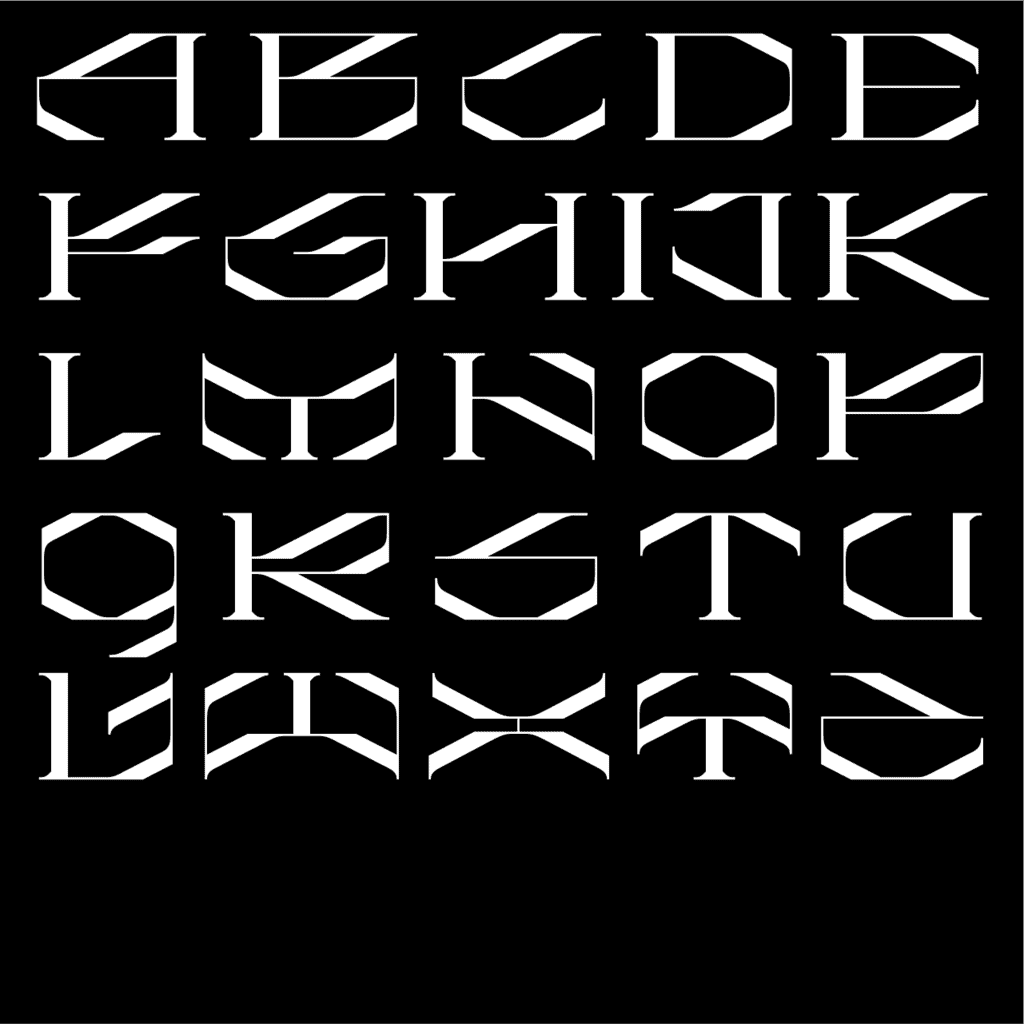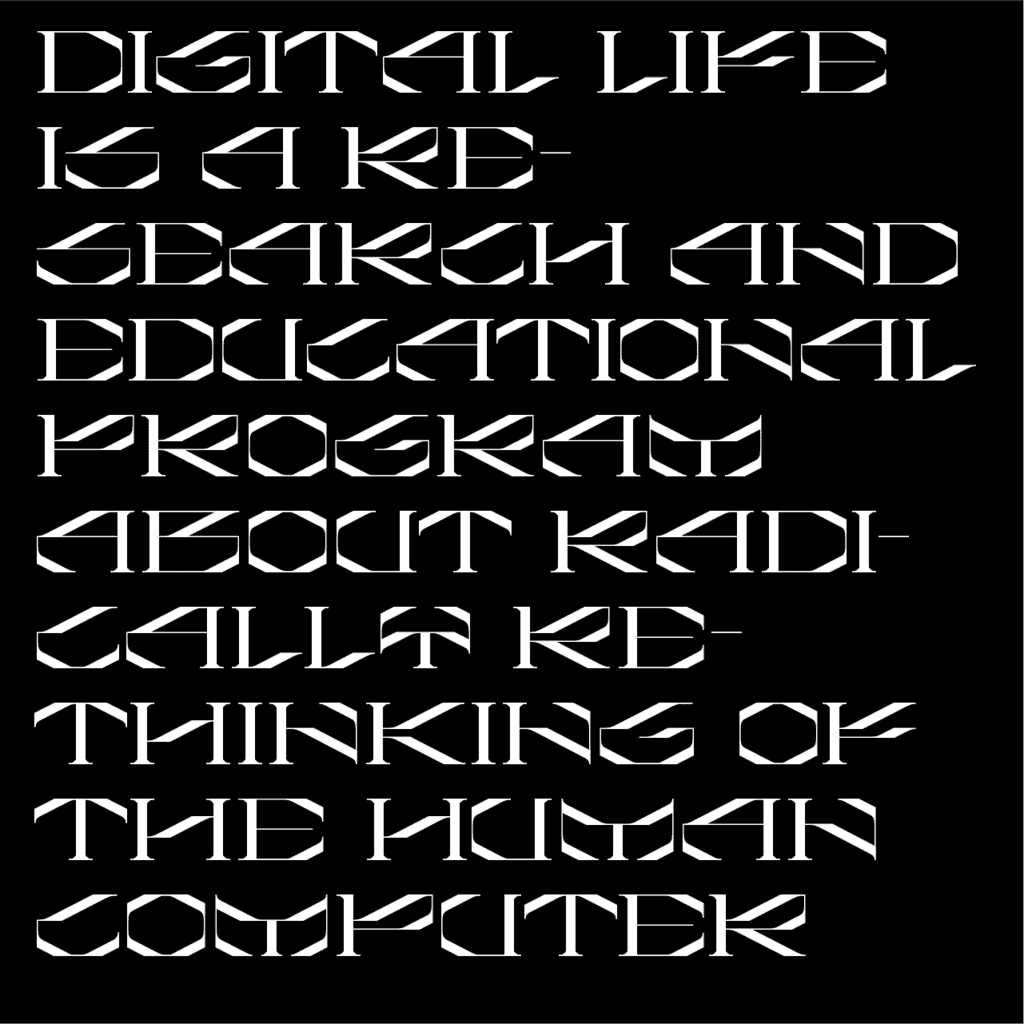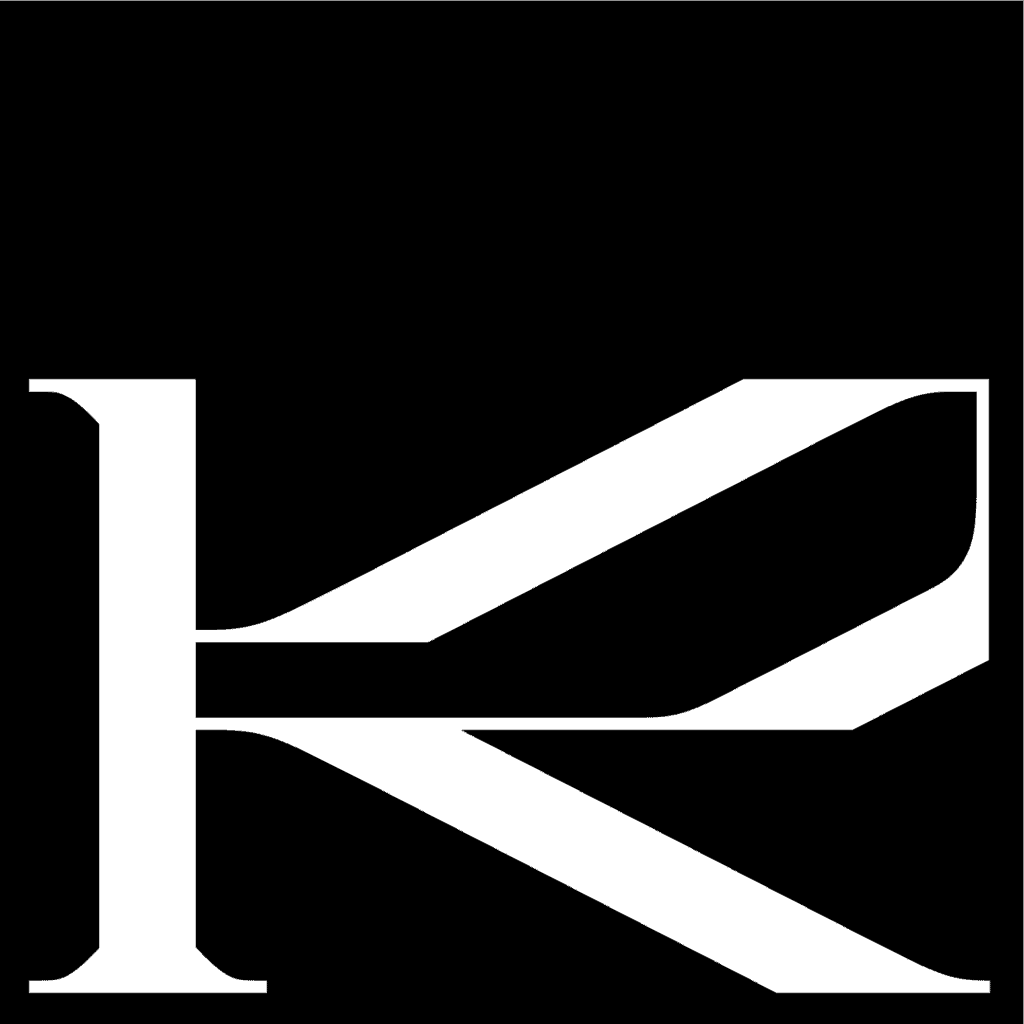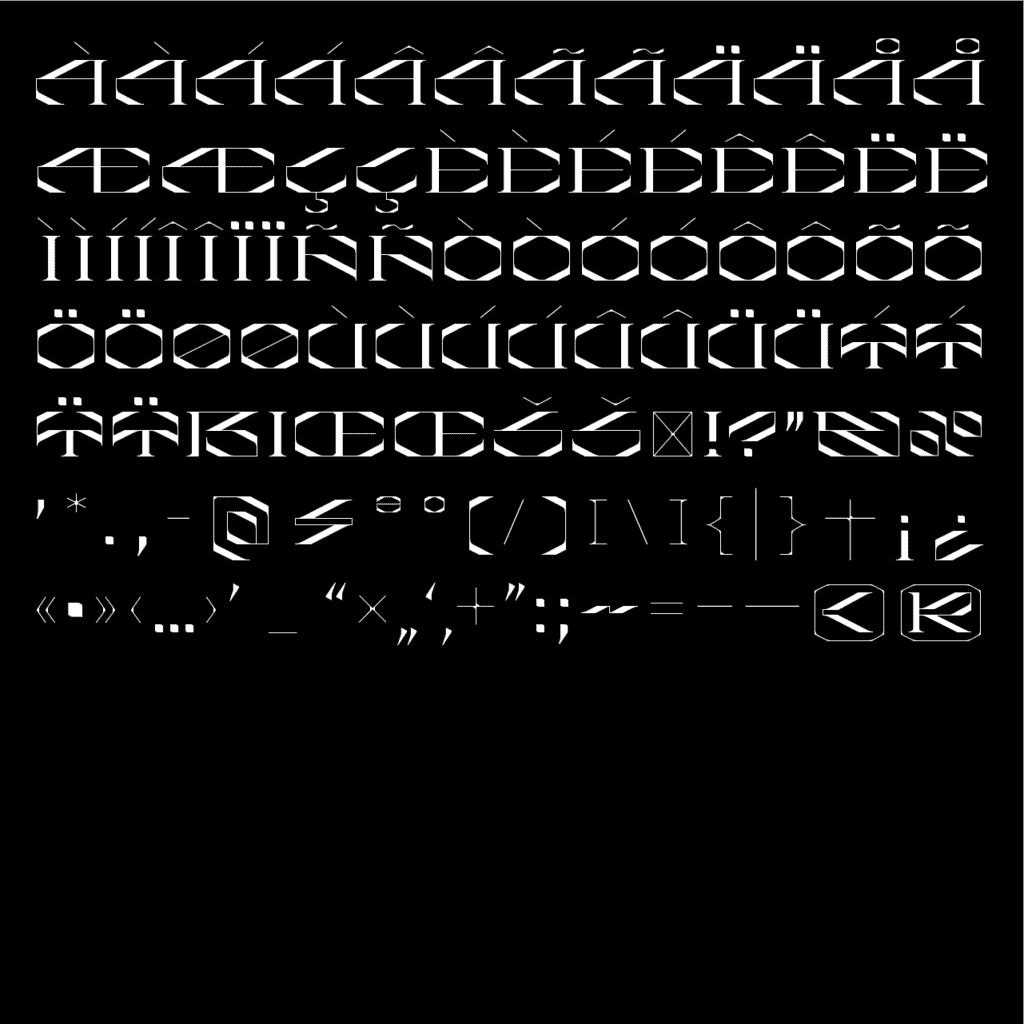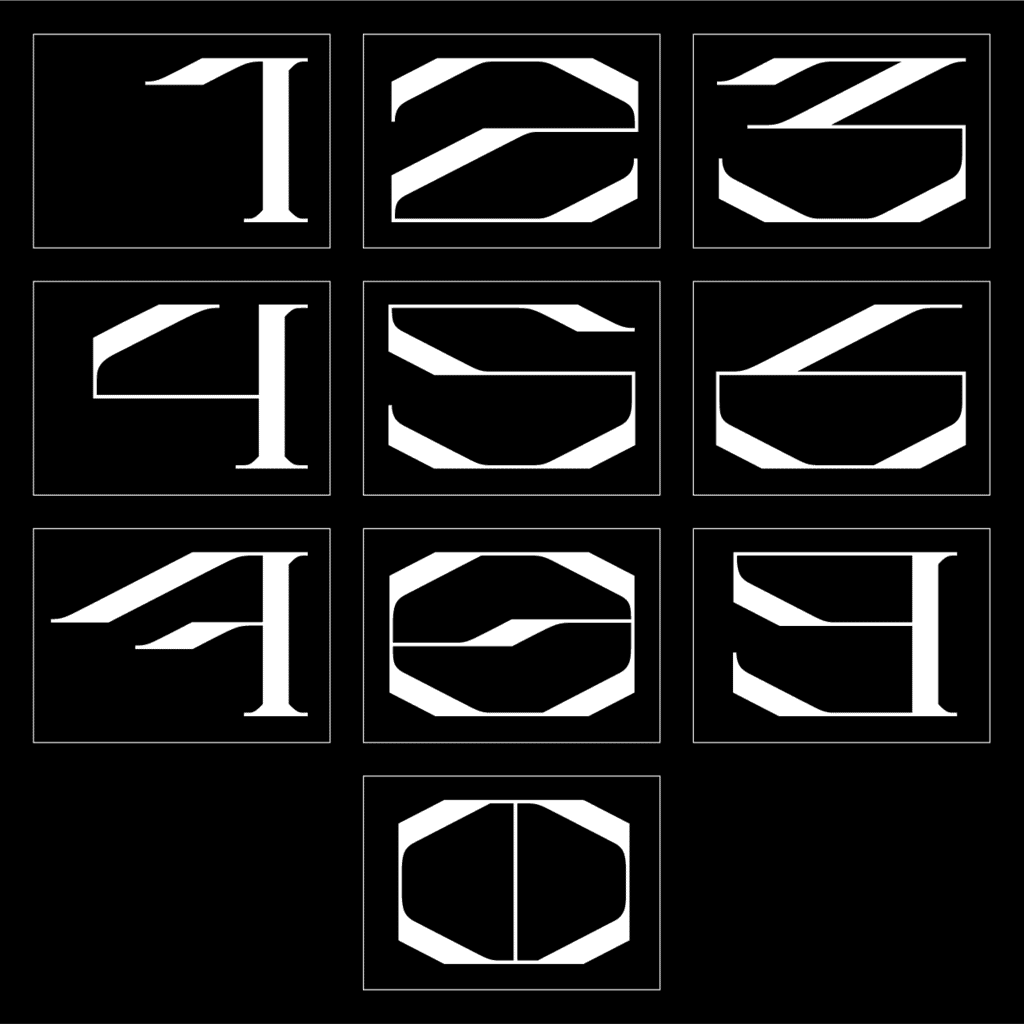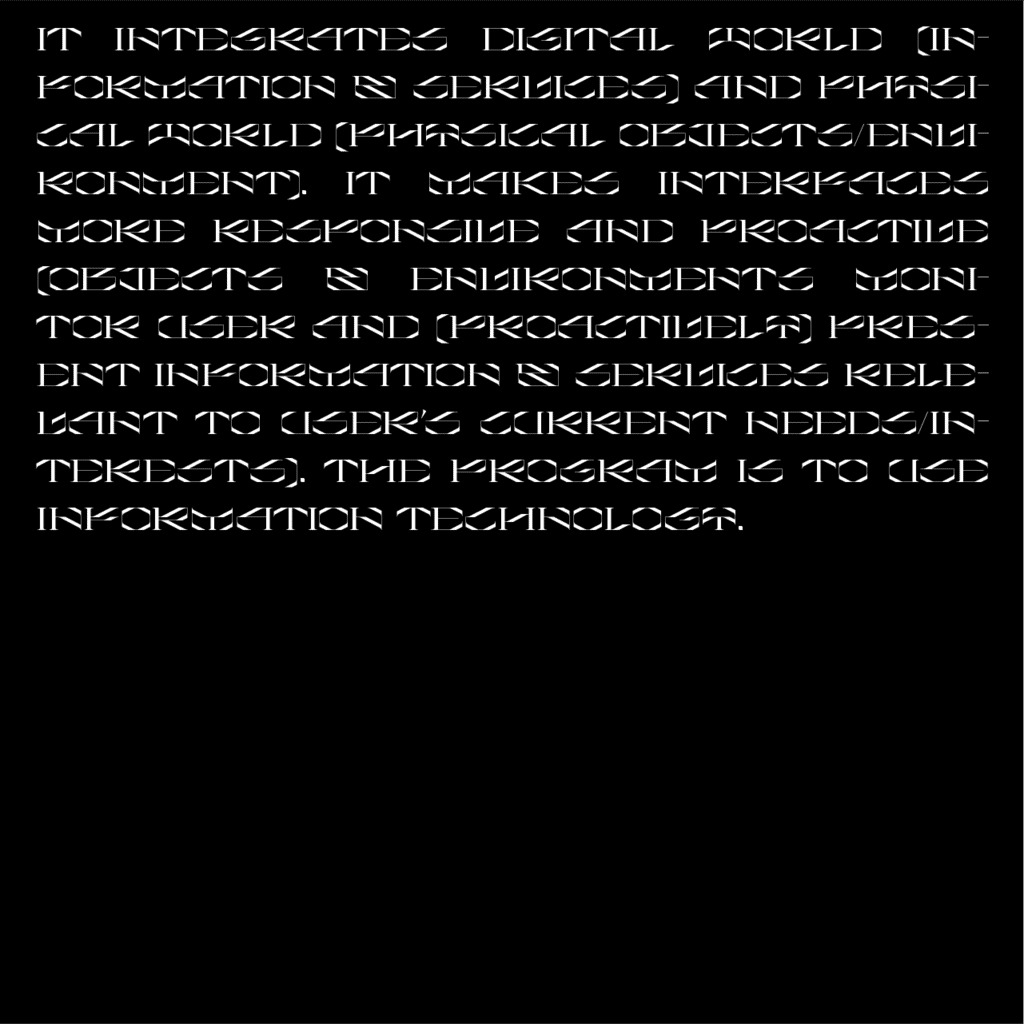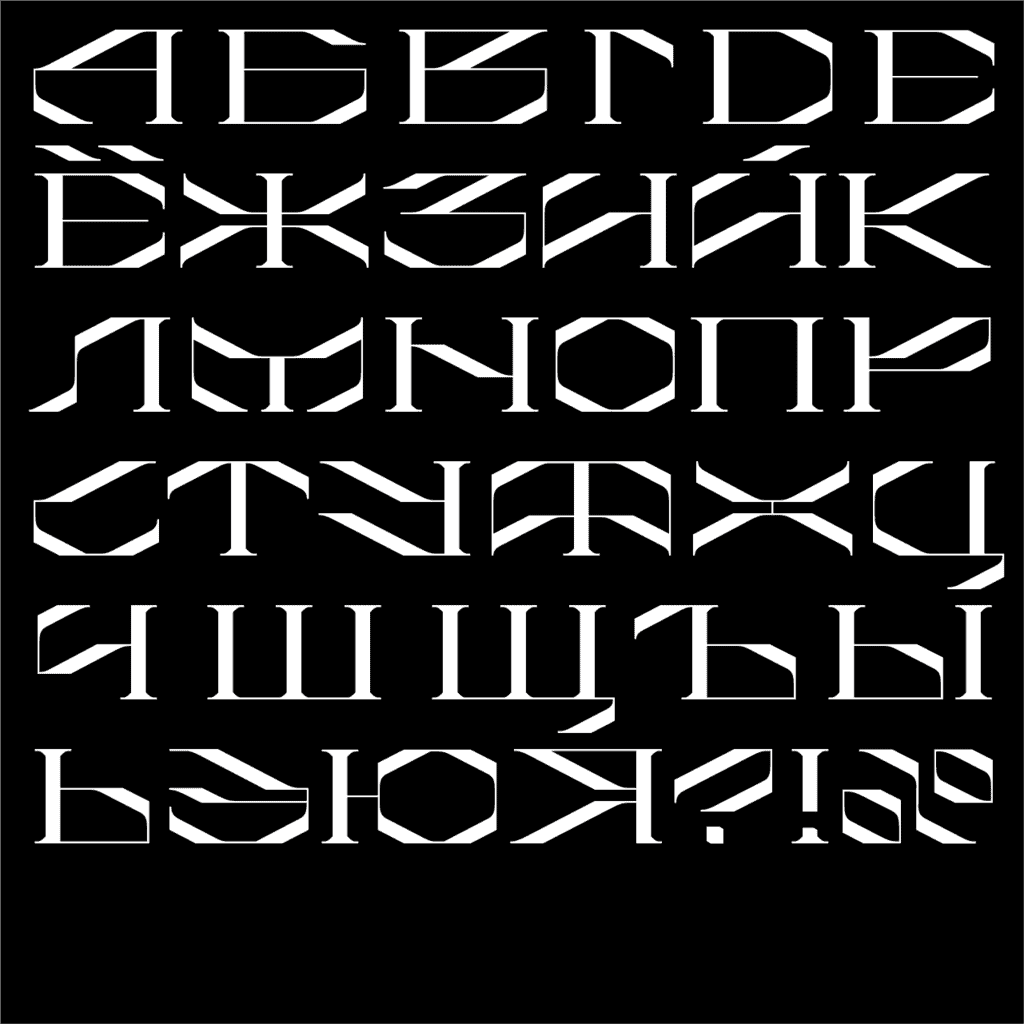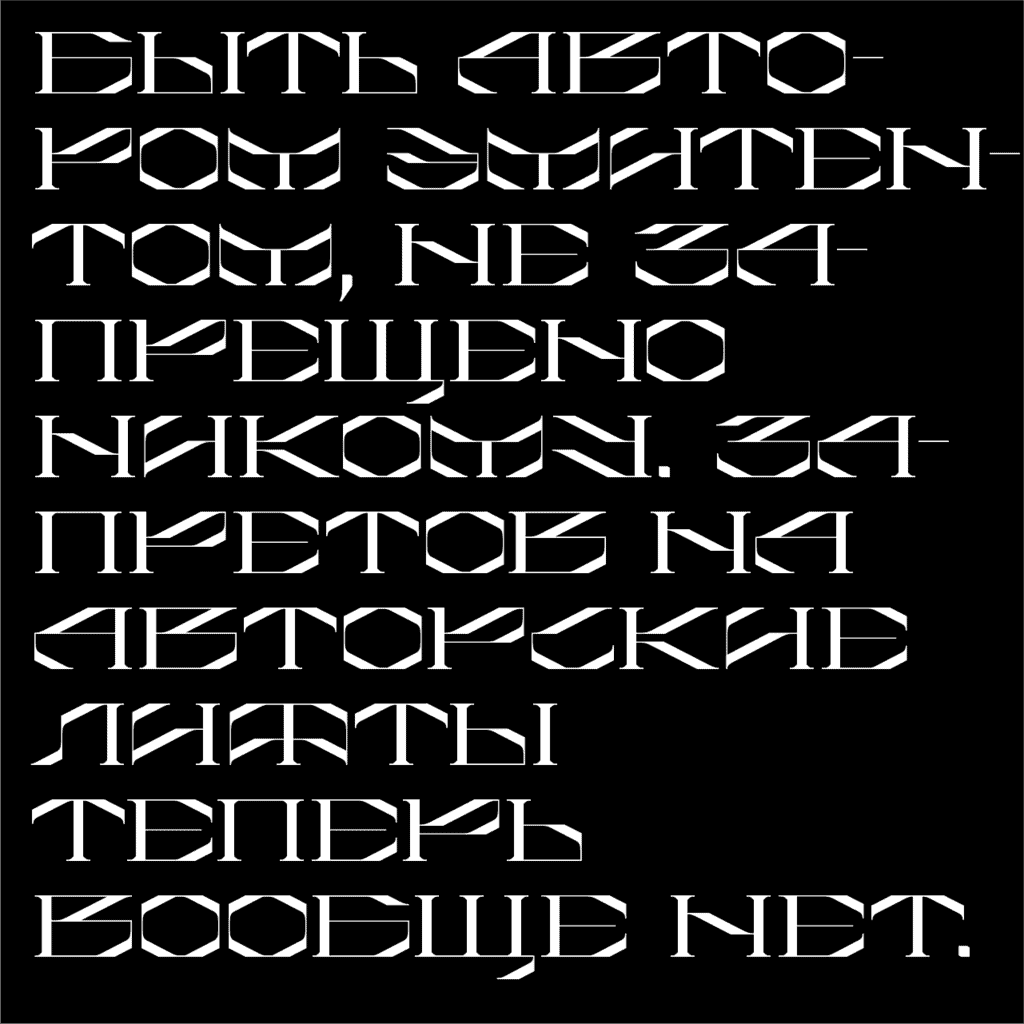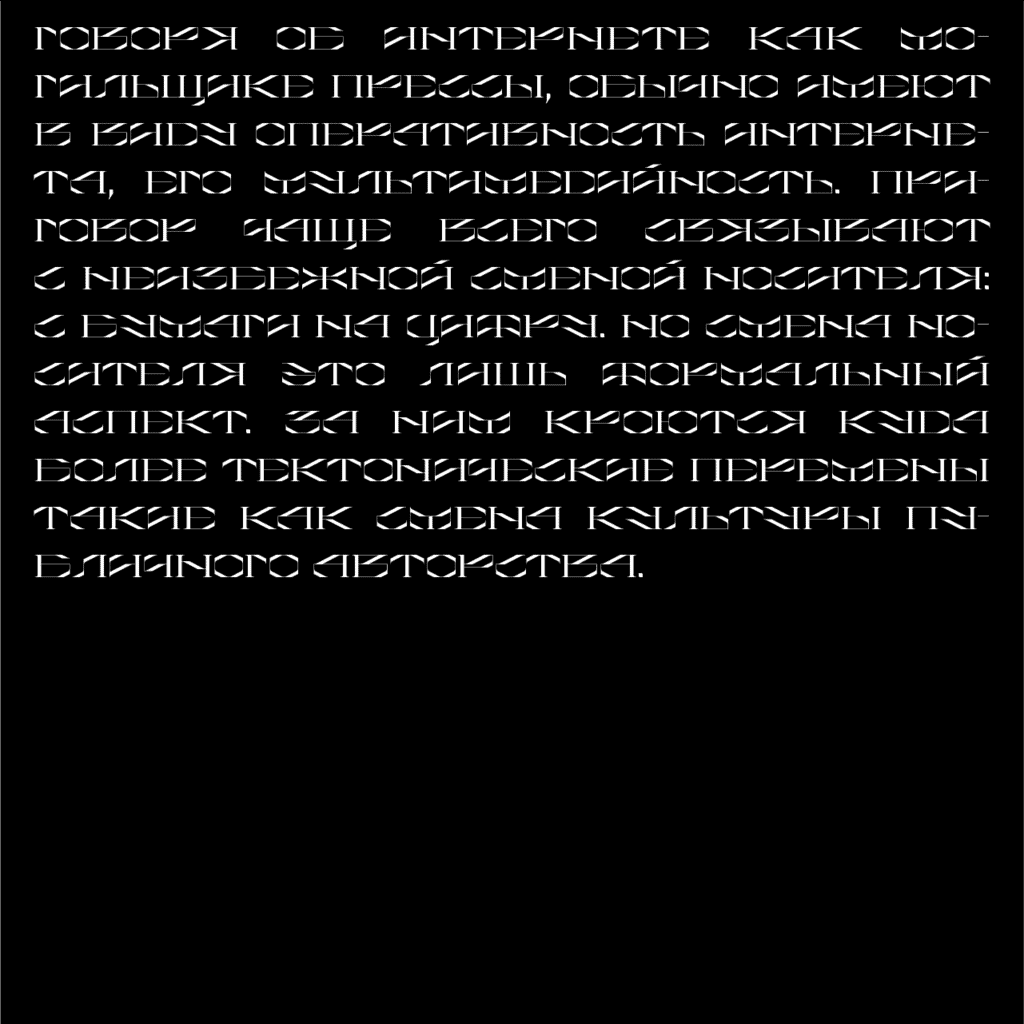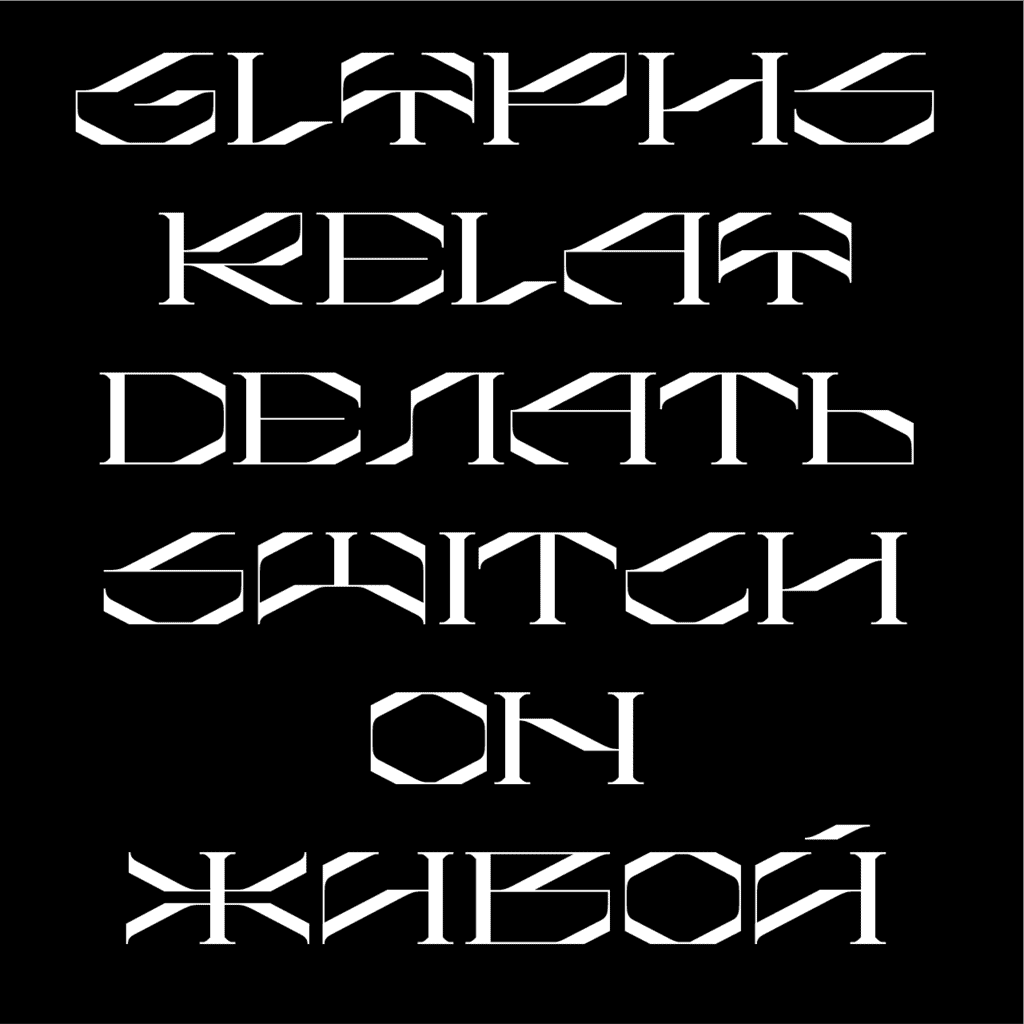
Engin
Engin is a sharp, futuristic font. Equipped with rigid structures and broken forms, wide shapes and non-standard patterns create a strong image and texture within the text.
Engin's image and mood are technological and futuristic; its unusual forms bring serifs into a new, futuristic realm. Engin is perfect for illustrative editorial layouts, large impactful headlines or clean, unique branding and visual identity settings.
Engin is a sharp, futuristic font. Equipped with rigid structures and broken forms, wide shapes and non-standard patterns create a strong image and texture within the text.
Engin's image and mood are technological and futuristic; its unusual forms bring serifs into a new, futuristic realm. Engin is perfect for illustrative editorial layouts, large impactful headlines or clean, unique branding and visual identity settings.